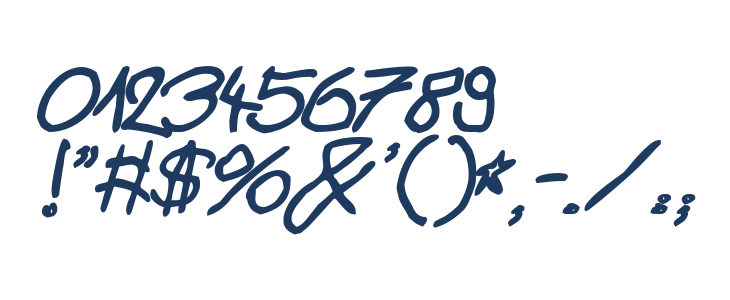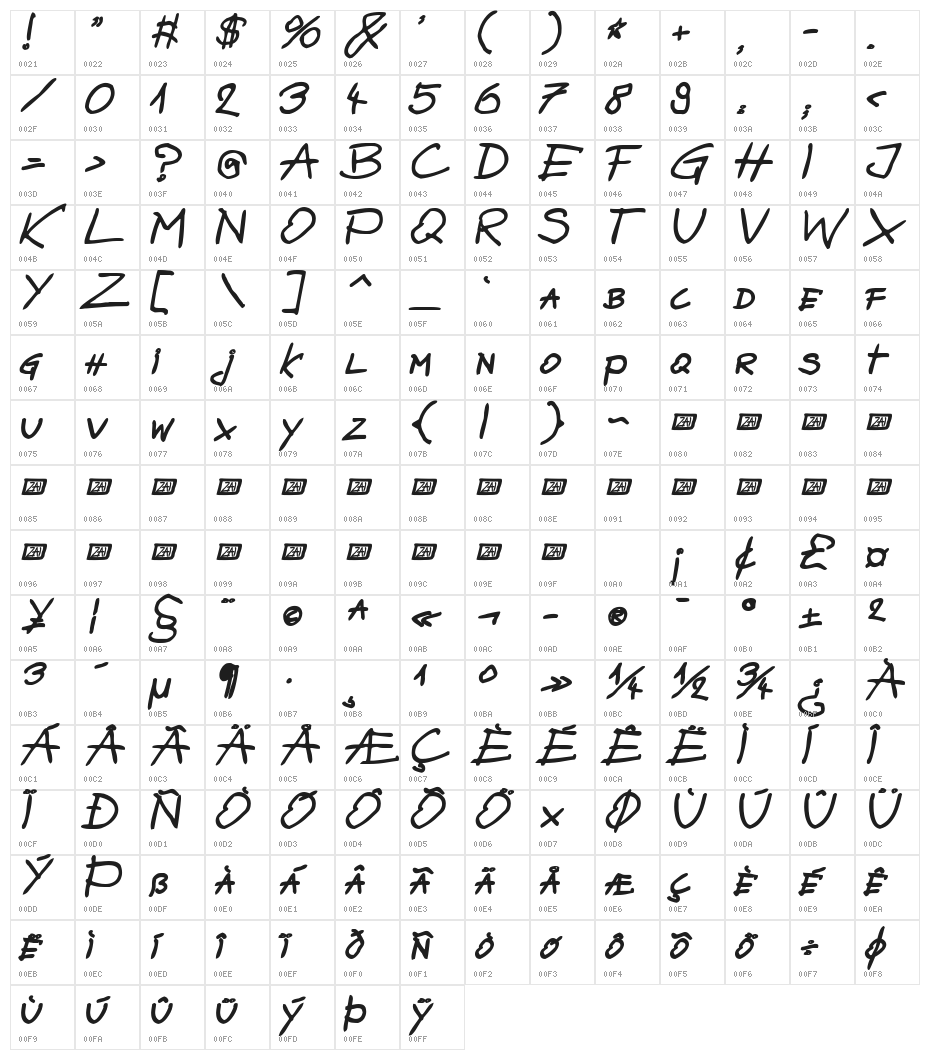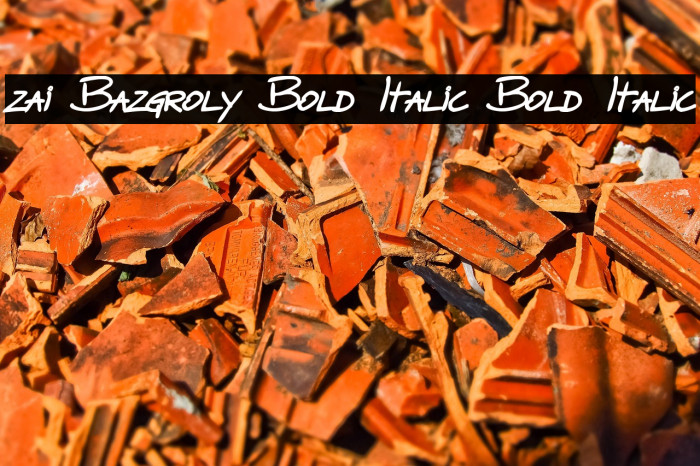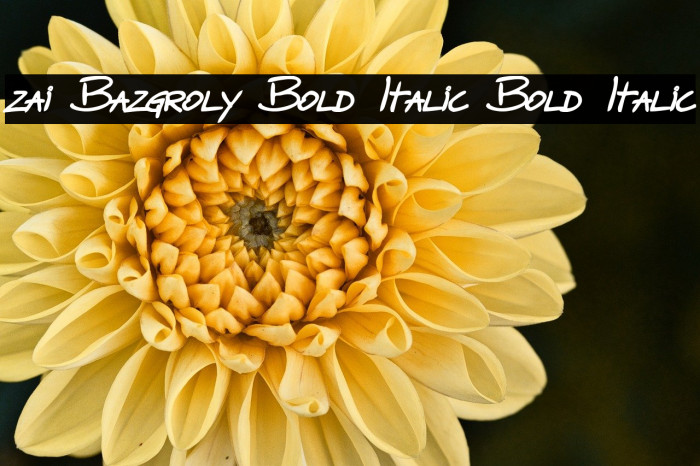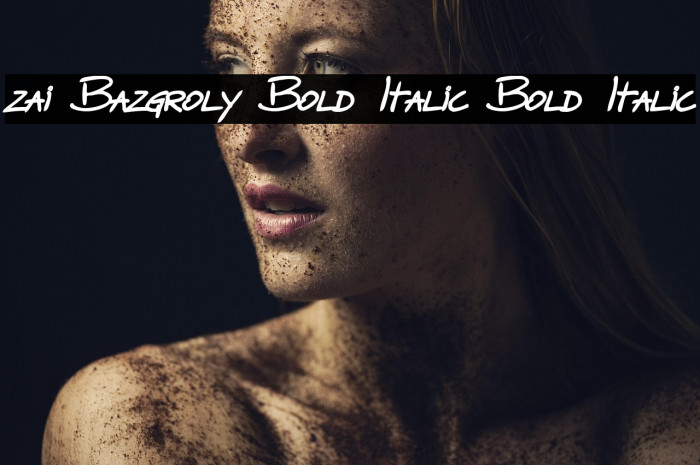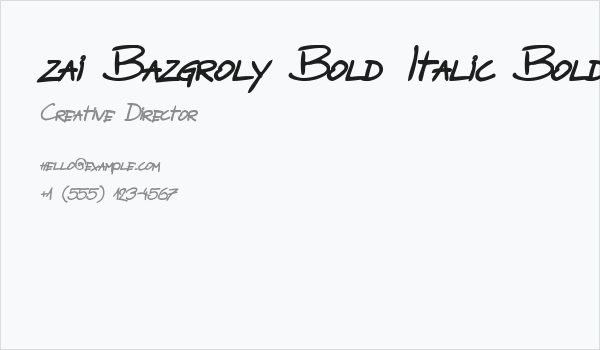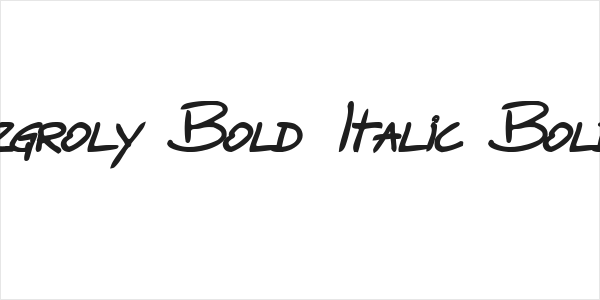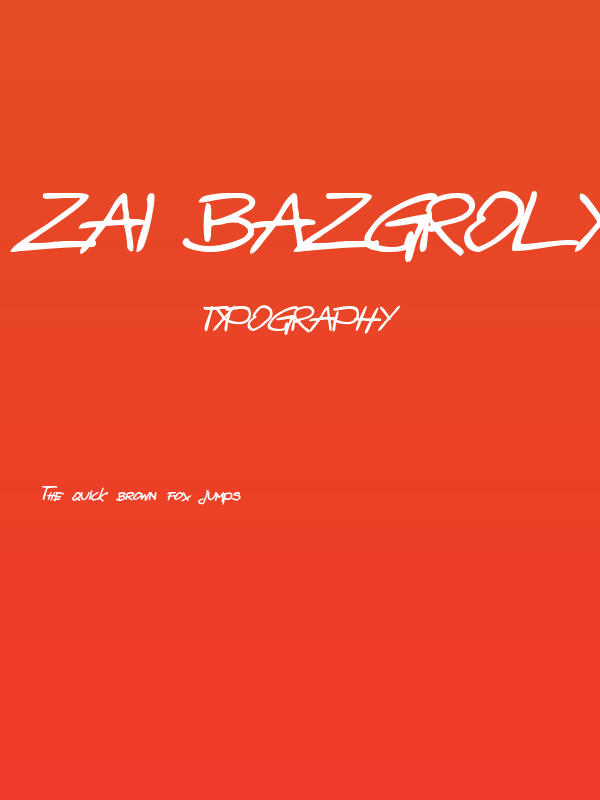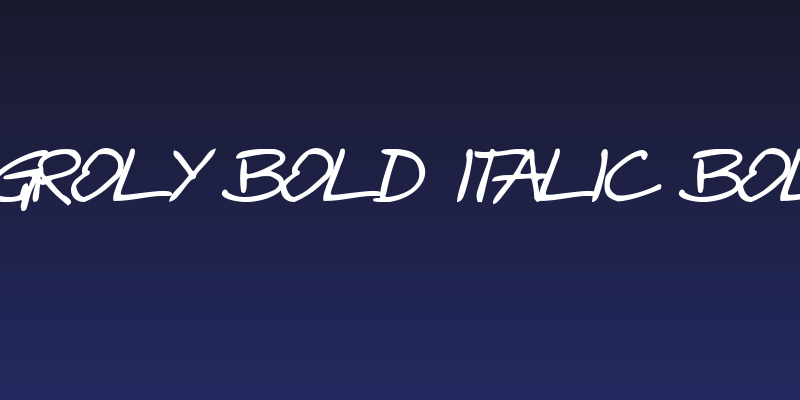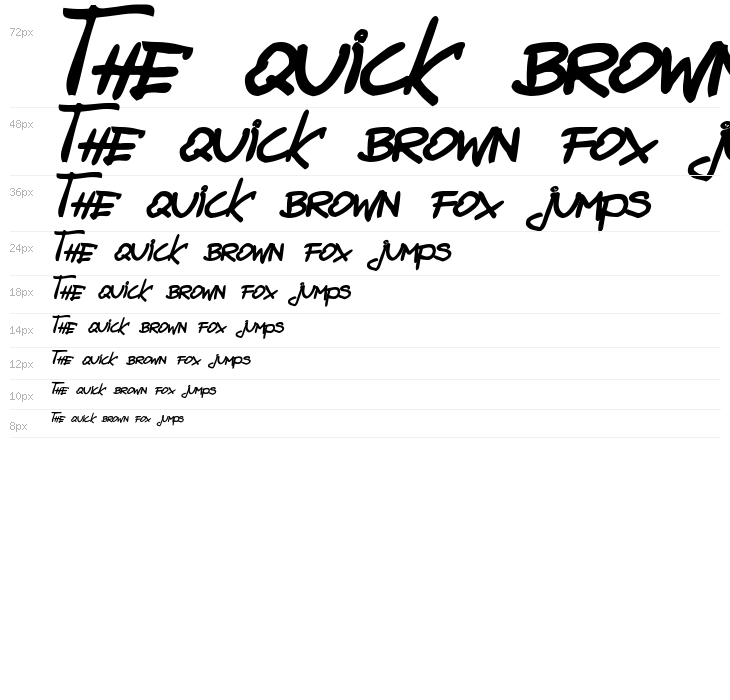
zai Bazgroly Bold Italic Font
zai Bazgroly Bold Italic Description
This font exhibits a bold and dynamic handwritten style, characterized by its fluid, cursive strokes that give it a lively and energetic appearance. The letters are slightly slanted, enhancing the italicized effect, while maintaining a consistent boldness throughout. The uppercase and lowercase letters are well-balanced, with a playful yet legible design. The numbers and special characters follow the same aesthetic, ensuring a cohesive look across all text elements. This font's unique style makes it stand out, offering a modern twist on traditional handwriting.